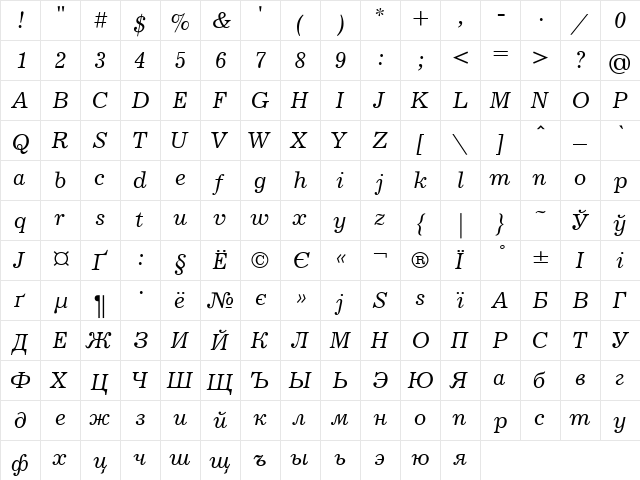
UkrainianJournal Italic
Design Context for UkrainianJournal Typeface
UkrainianJournal offers clean, dependable letterforms without strong stylistic allegiance, making it a practical choice for designers who need flexibility. Its italic angle brings a sense of urgency and motion to the letterforms.
Pro Tip: Use UkrainianJournal for emphasis, pull quotes, and subheadings where its slanted energy can add rhythm to the layout.